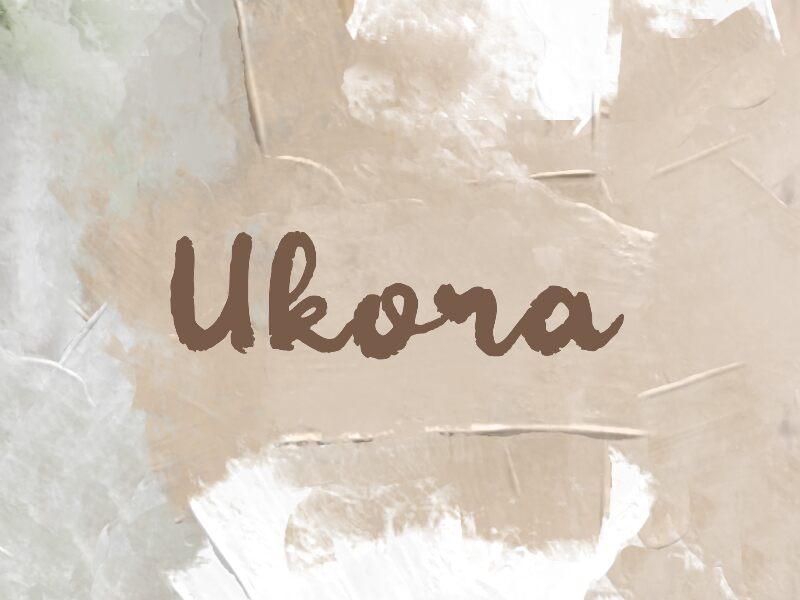
Ukora
Ukora font by wepfont.com is a free brush script font that looks like it’s been painted in a single, confident sweep. Its strokes are bold, inky, and slightly rough at the edges, giving each word the weight and texture of real marker on paper. The letters flow into one another with a relaxed rhythm, so your text feels spontaneous and hand-made rather than stiff or over-polished.
Using Ukora, this free font shines on bold logos, social media graphics, packaging, posters, T-shirt designs, and energetic quote layouts where you want attitude and immediacy. The dense, dark texture holds up beautifully at larger sizes, making headlines feel loud and tactile. For balance, pair Ukora with a clean sans-serif in small text, letting the brush script handle the emotion while the sans keeps everything readable.